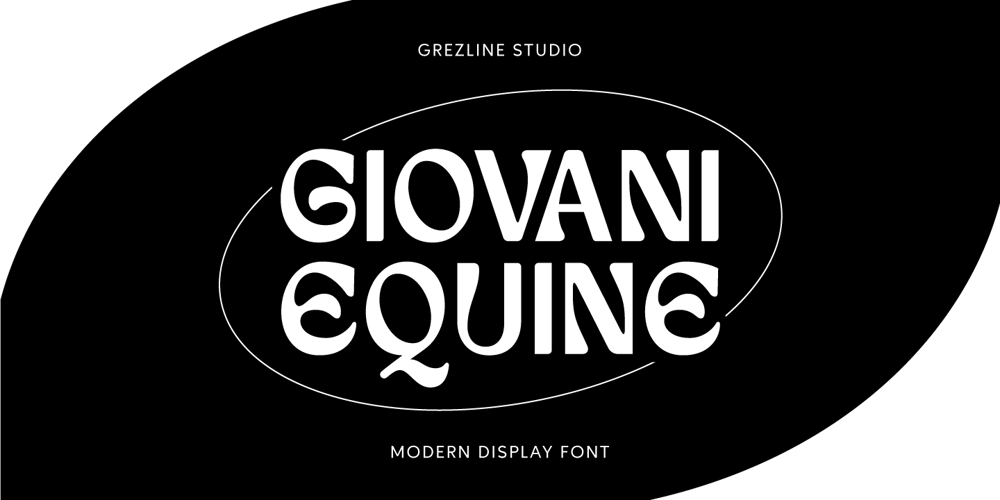
Giovani Equine Font Family was designed by Akhmad Reza Fauzi and published by Grezline Studio. Giovani Equine contains 1 styles and family package options. Giovani Equine is a unique modern display font. Giovani Equine font is ideal for logos, posters, packaging, banner, and other creative projects that demand visually aesthetic and distinctive elements.Feature :- Ligature & Alternate glyphs- Multilingual Language- Works on PC & Mac- Simple installations- Accessible in the Adobe Illustrator, Adobe Photoshop, Adobe InDesign, even works on Microsoft Word.Thank you!Grezline Studio – Akhmad Reza Fauzi